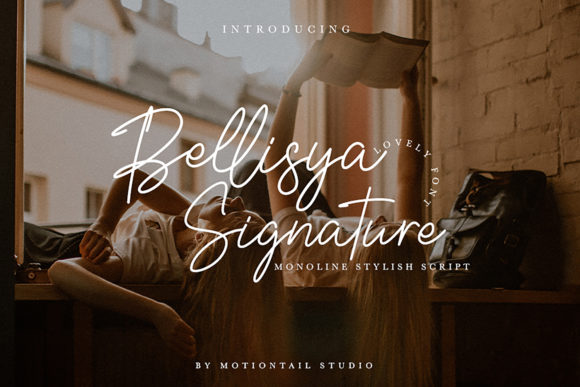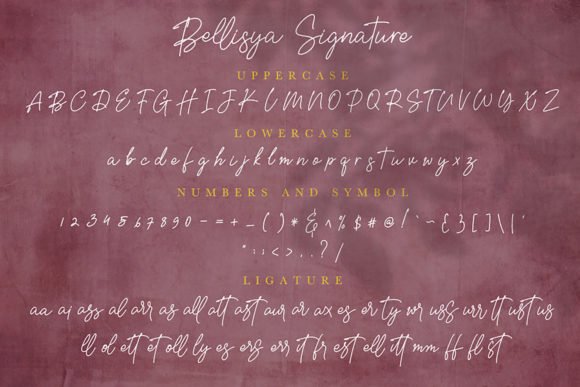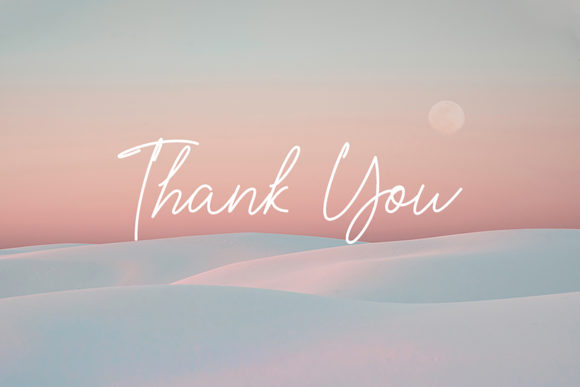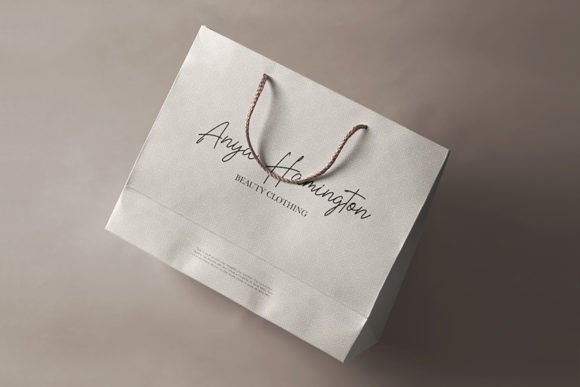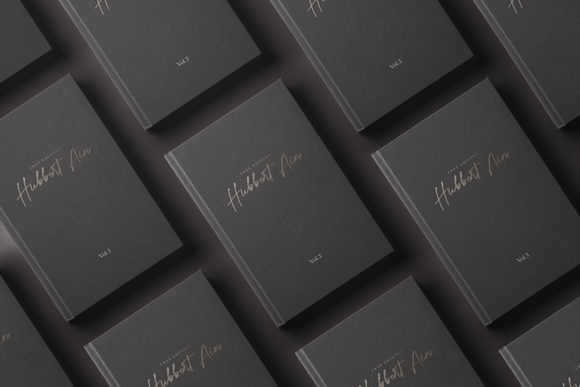
About Bellisya Signature Font
Bellisya Signature feels equally charming and elegant. This stunning script font is a stylish homage to classic calligraphy. It features a varying baseline, smooth lines, gorgeous glyphs and stunning alternates. Fall in love with its authentic feel and use it to create gorgeous wedding invitations, beautiful stationary art, eye-catching social media posts, and cute greeting cards.